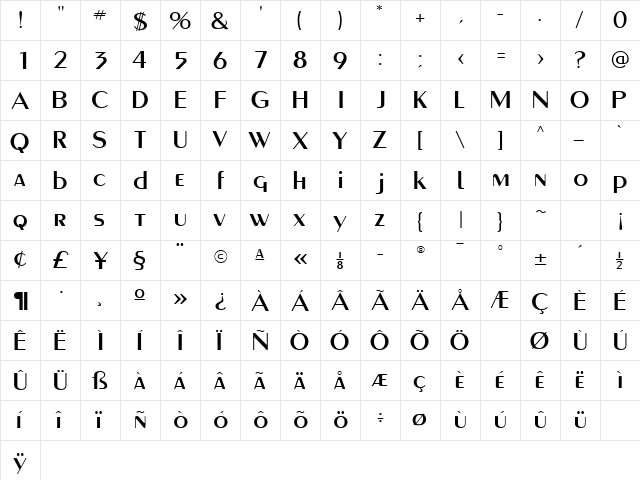
PaqueteSSK Regular
Design Context for PaqueteSSK Typeface
PaqueteSSK offers clean, dependable letterforms without strong stylistic allegiance, making it a practical choice for designers who need flexibility.